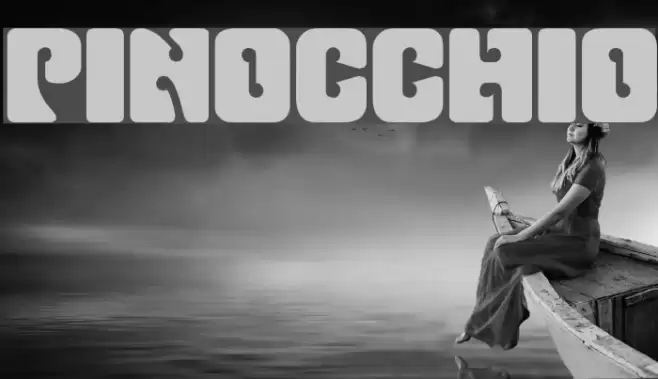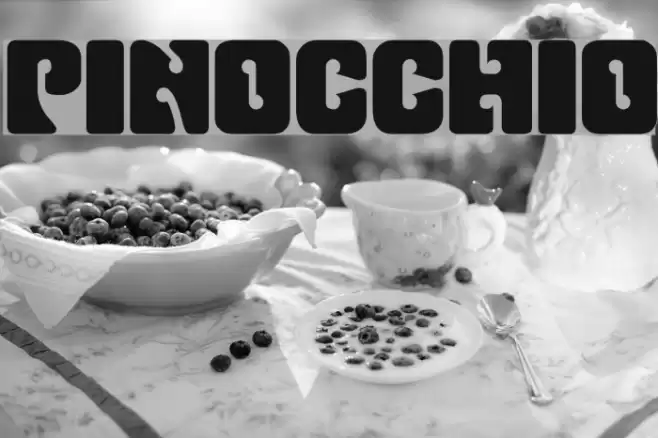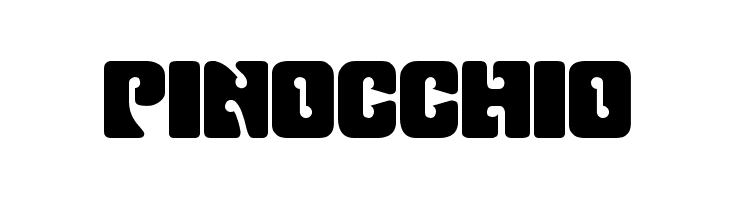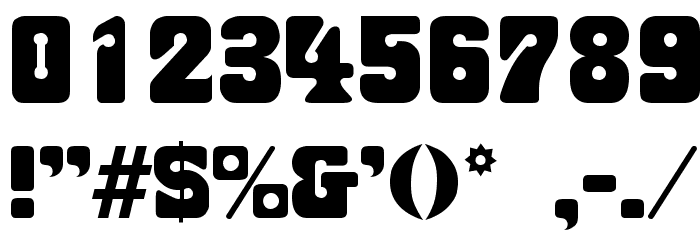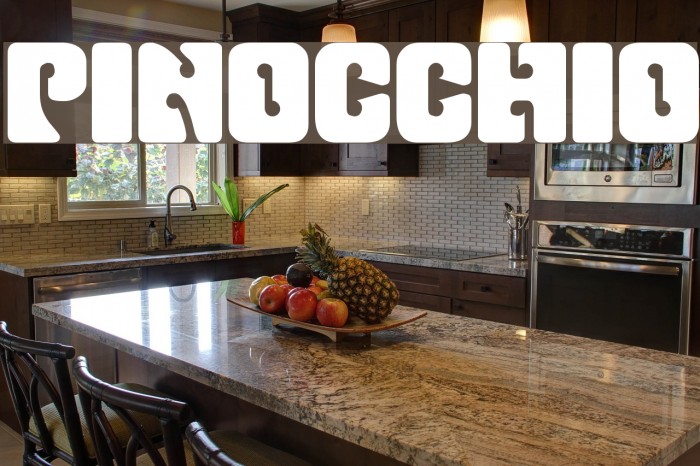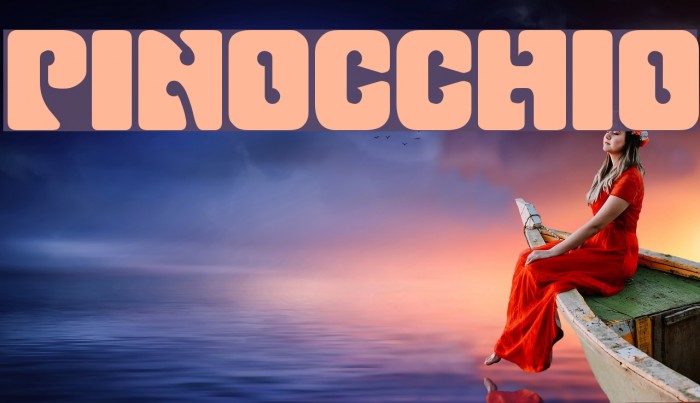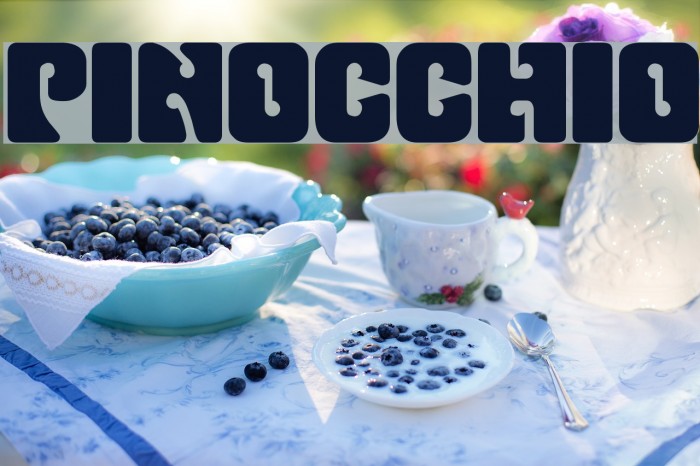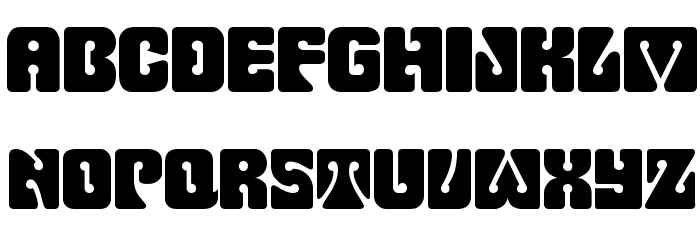
Pinocchio Font
Pinocchio Description
This font features a bold and chunky design with a strong geometric influence. The characters are highly stylized, with thick strokes and minimal contrast, giving them a solid and impactful appearance. The rounded edges and uniform stroke widths contribute to a playful yet assertive aesthetic. The uppercase and lowercase letters maintain a consistent style, while the numerals and special characters integrate seamlessly with the overall design. This font's unique style makes it stand out, offering a modern twist on traditional bold typefaces.
A bold, geometric font with rounded edges and minimal contrast from Uncategorized fonts.
- Proposed Projects: Ideal for branding, poster design, and headlines that require a strong visual impact.